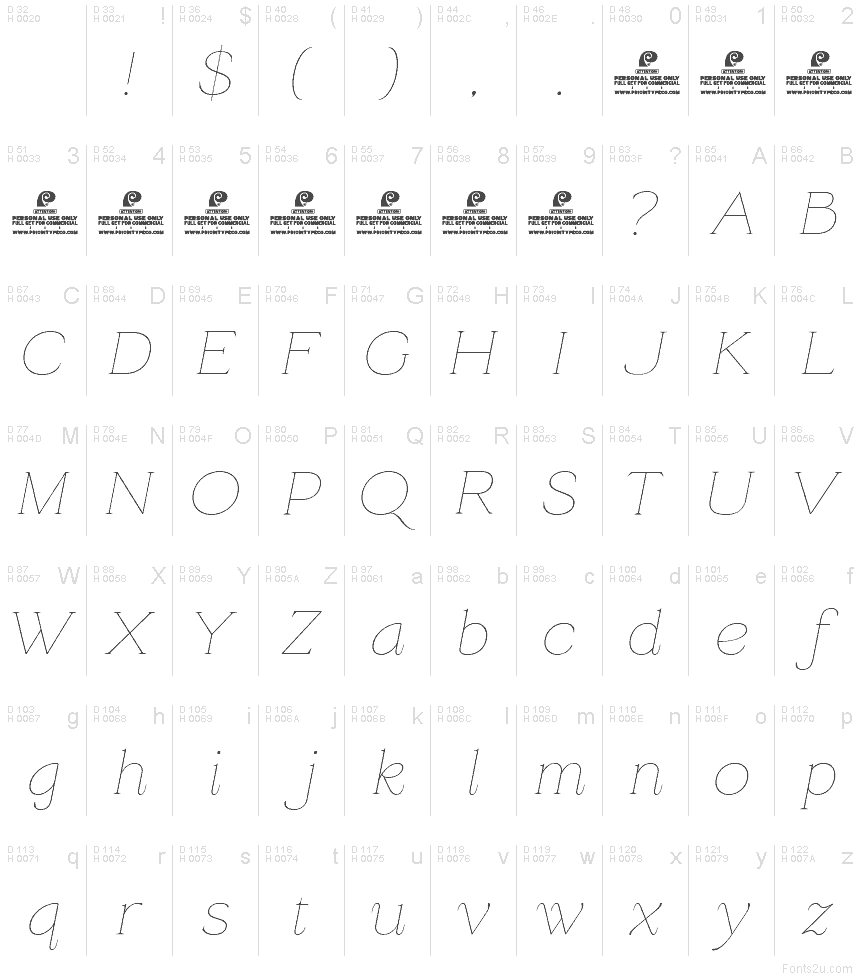
Radiant Charisma DEMO Thin Ita
Radiant Charisma Thin Ita font by Prioritype Co is a refined free serif font. A thin italic style contributes to the typeface’s sleek modern design, and its sophisticated appearance and elegance. There’s lightness and delicacy in the way this font appears with letters well-sized, distinct and proportional.